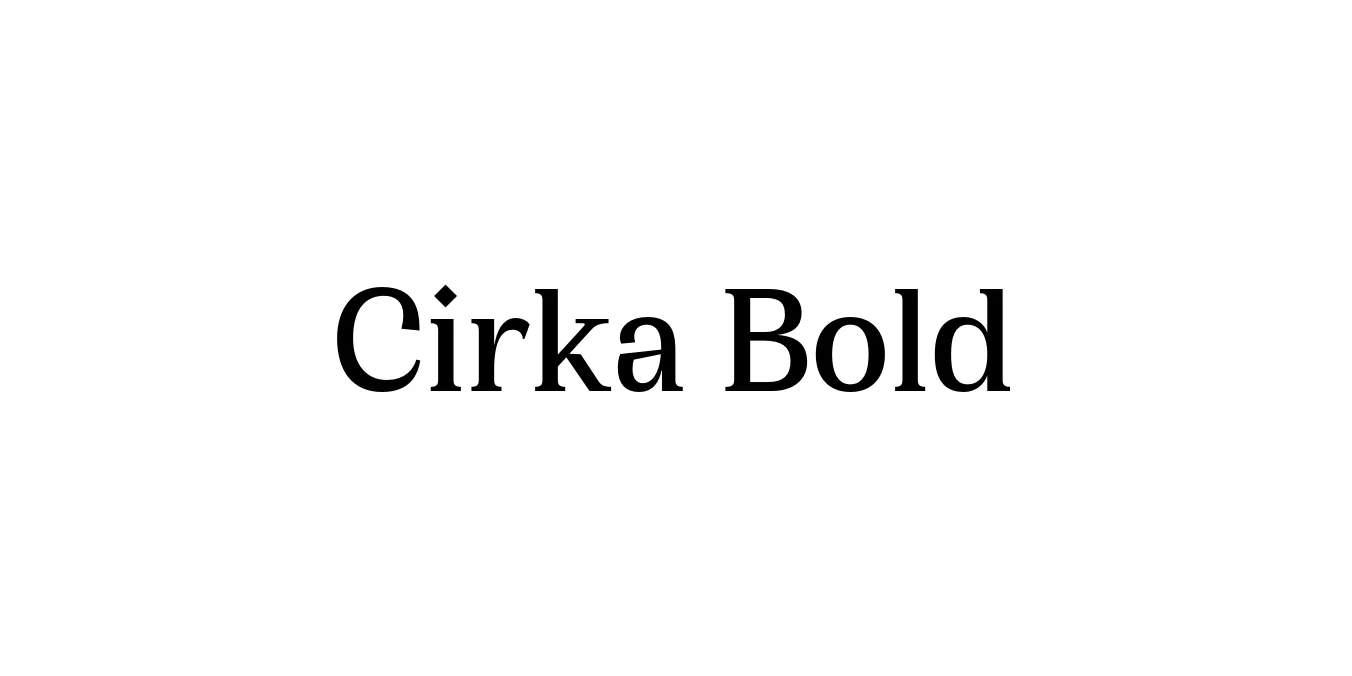
Cirka Bold
Designed by Nick Barclay
Cirka Bold is a high-contrast display serif typeface designed by Nick Barclay, blending the timeless elegance of classic serifs with a contemporary, sharp aesthetic. This typeface is characterized by its dramatic thick-and-thin stroke transitions and a strong vertical axis, which gives it a sophisticated and commanding presence in any layout. The Bold weight specifically emphasizes these features, making it an excellent choice for designers looking to inject luxury and authority into their visual compositions.
The history of Cirka is rooted in the revival of late 20th-century editorial typography, where legibility meets artistic expression. It was crafted to bridge the gap between traditional book fonts and modern fashion branding. With its refined terminals and meticulously balanced proportions, Cirka Bold excels in environments where style is as important as substance, ensuring that every character contributes to a high-end, professional look.
Cirka Bold Best Uses
Perfect for magazine headlines and large-scale pull quotes.
Excellent for luxury fashion logos and high-end boutique identities.
Adds a premium and sophisticated feel to cosmetic and lifestyle products.
Ideal for hero banners on lifestyle and design-focused websites.